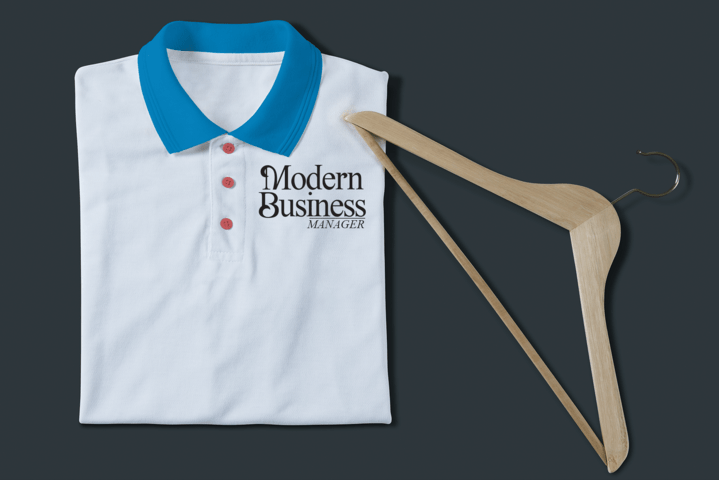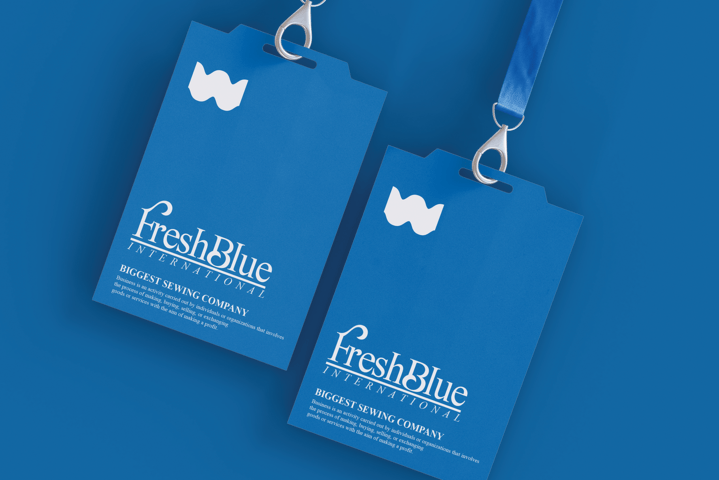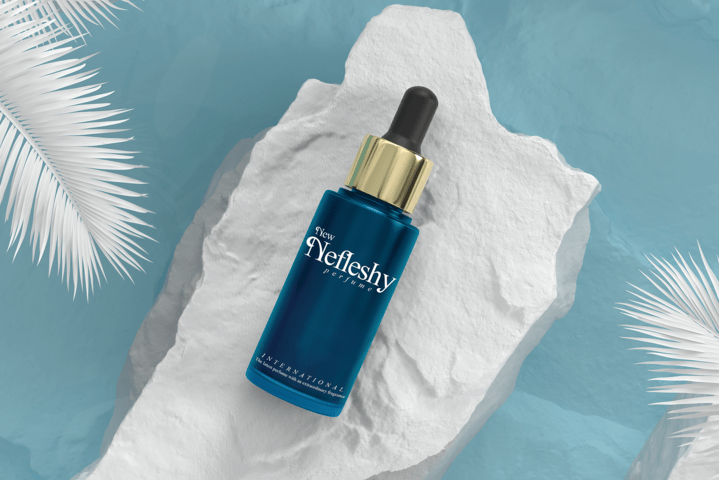
The Natures Font
The Natures Serif Font
This Font is a playful and fun serif font featuring uniquely shaped letters and swirls. It is perfectly suitable for projects that require unique typography!